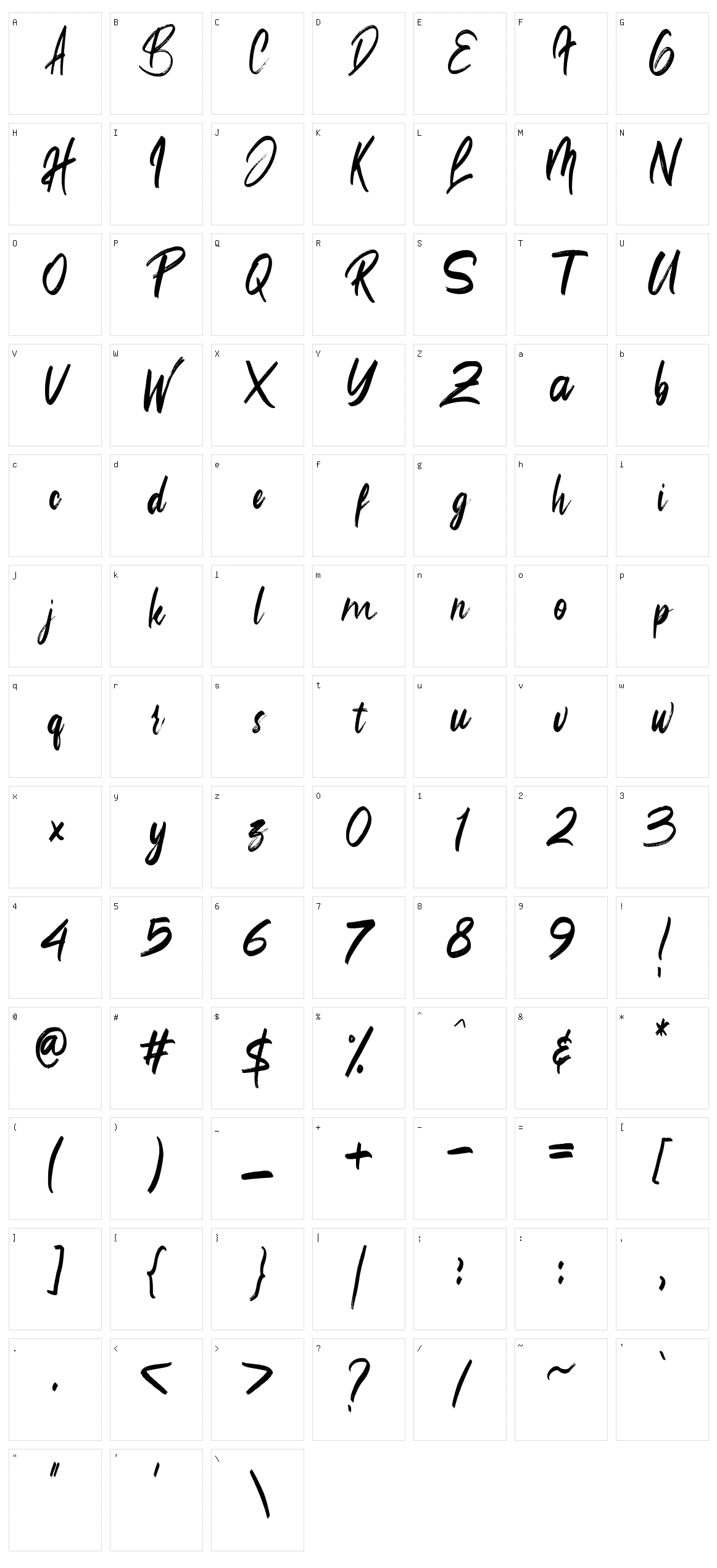
The free font ReallistiC is carefully designed by Analogous Studio, showcasing a thoughtful balance of creativity and usability and falls under the Script font style. When you download the ZIP file, it contains only 733.92 KB of font files, making it lightweight and quick to download. Please review the license details below to understand permitted usage and distribution rights. If license information is not available, we recommend using this font for personal projects only or contacting the author directly for commercial usage permissions.